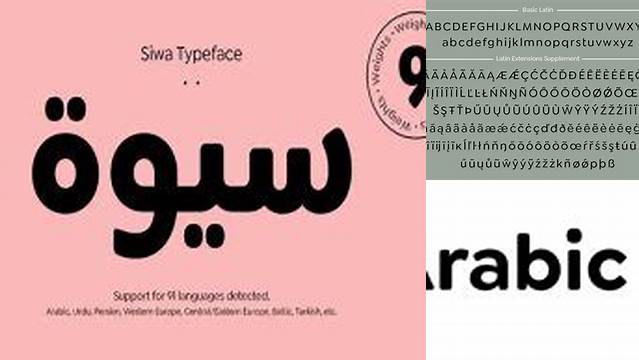
Siwa Arabic is a captivating and versatile font family that has gained immense popularity among designers and typographers alike. Its elegant curves and distinct letterforms make it a perfect choice for a wide range of projects, from branding and advertising to web design and editorial layouts. In this comprehensive guide, we'll delve into the intricacies of the Siwa Arabic font family, exploring its unique characteristics, its various weights and styles, and most importantly, how you can download it for free.
Understanding the Siwa Arabic Font Family
The Siwa Arabic font family is more than just a single typeface; it's a carefully crafted collection of fonts designed to work harmoniously together. Each weight and style within the family has been meticulously designed to complement the others, ensuring consistency and visual appeal across your designs. This thoughtful design makes Siwa Arabic an excellent choice for projects that require a cohesive and professional look.
The family typically includes a range of weights, from thin and light to bold and heavy, allowing you to create visual hierarchy and emphasis within your text. In addition to the regular weight, you'll often find italic versions, which add a touch of elegance and dynamism to your designs. Some Siwa Arabic font families may also include condensed or expanded versions, providing even greater flexibility and versatility.
One of the defining characteristics of Siwa Arabic is its clean and modern aesthetic. The letterforms are well-defined and easy to read, making it suitable for both display and body text. The font also boasts excellent legibility, ensuring that your message is clear and accessible to your audience. Siwa Arabic also works well as a display typeface for headings, logos, and other design elements that require a touch of sophistication.
Another notable feature of Siwa Arabic is its support for a wide range of characters and languages. This is particularly important for projects that target a global audience. The font typically includes glyphs for Arabic, Persian, and Urdu, as well as Latin characters, numbers, and symbols. This comprehensive character set ensures that you can use Siwa Arabic for a variety of linguistic contexts.